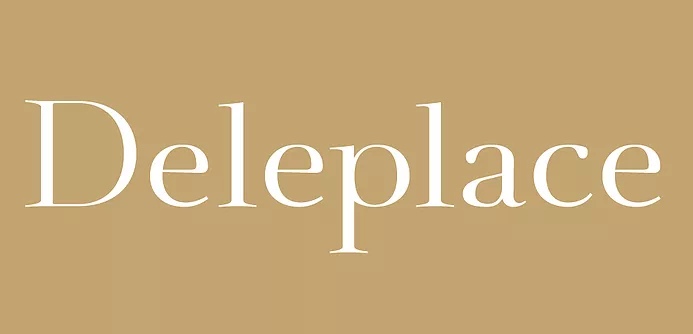
Deleplace Font
Deleplace Font is perfect for French bistro branding, gourmet restaurant menus, wine bar signage, artisan bakery logos, luxury hotel advertising, boutique retail graphics, sophisticated event invitations, premium food packaging, elegant editorial layouts, and upscale culinary publications.
What makes Deleplace Font so exciting is its extraordinary ability to embody European sophistication and culinary excellence through meticulously crafted letterforms that whisper of Parisian cafes and continental elegance. This distinguished typeface captures the essence of refined taste and cultural sophistication with characters that seem to flow with the same grace as fine wine and carry the same attention to detail as artisan craftsmanship. The font's elegant design elements perfectly balance classical heritage with contemporary refinement, making it an indispensable choice for brands seeking to communicate luxury, authenticity, and sophisticated taste to discerning clientele.
Deleplace Font comes in multiple font families including Regular, Bold, Light, Italic, Bold Italic, Condensed, Extended, and Classic variations. Each family member maintains the core sophisticated characteristics while offering different elegance levels and stylistic approaches to suit various upscale design requirements.
The meticulous craftsmanship in Deleplace Font makes it particularly suitable for luxury hospitality and gourmet food industries where attention to detail is paramount. Its refined letterforms maintain excellent readability while preserving the sophisticated charm that appeals to connoisseurs and luxury consumers who value authentic experiences and quality craftsmanship.
Professional designers working in luxury hospitality appreciate how Deleplace Font elevates ordinary text into sophisticated expressions of culinary artistry and refined taste. The typeface's comprehensive character set includes special European characters and decorative elements that enhance the overall continental atmosphere of any design project.
For creative professionals serving upscale restaurants, luxury hotels, and gourmet food brands, Deleplace Font serves as the perfect foundation for establishing memorable visual identities that capture the timeless elegance and sophisticated taste that defines truly exceptional dining and hospitality experiences.